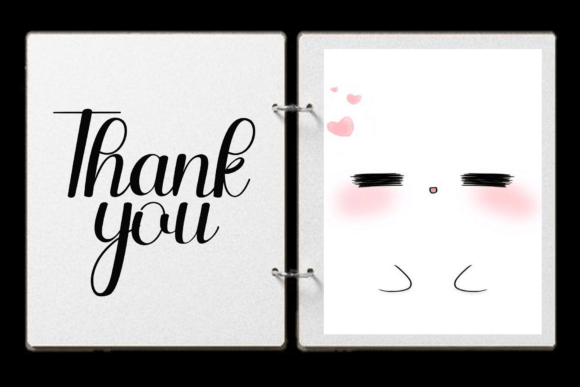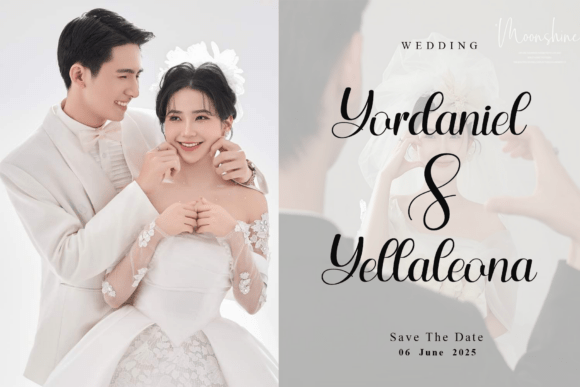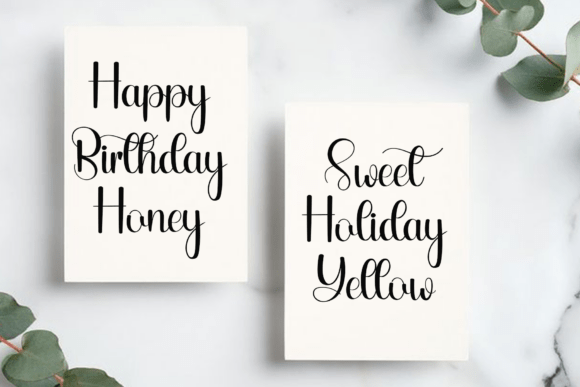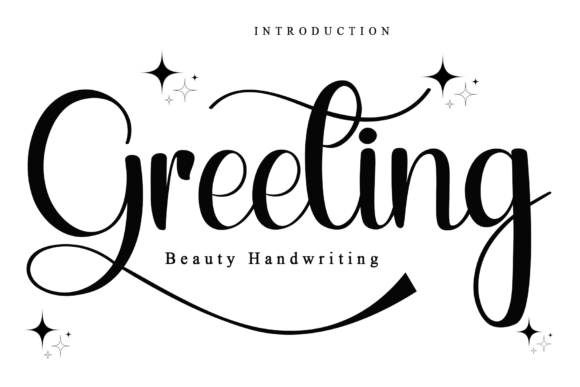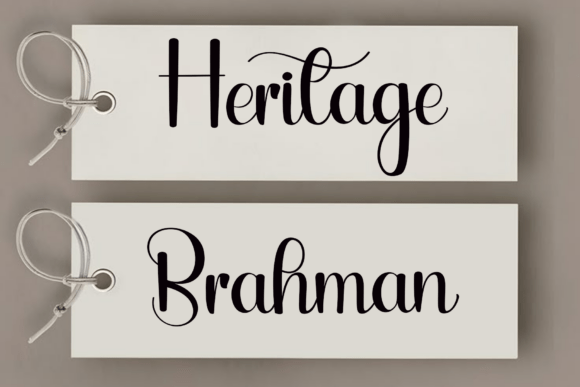
Greeting 3 is a charming and elegant font perfect for adding a heartfelt touch to your greeting cards, invitations, and personalized designs. Read more
Greeting 3 is a beautifully crafted font designed to convey warmth and sincerity in every letter. Ideal for greeting cards, wedding invitations, and special occasion designs, this font combines readability with a stylish flair. Its balanced curves and inviting style make it the perfect choice to add emotional impact and sophistication to your projects, ensuring your messages truly stand out.